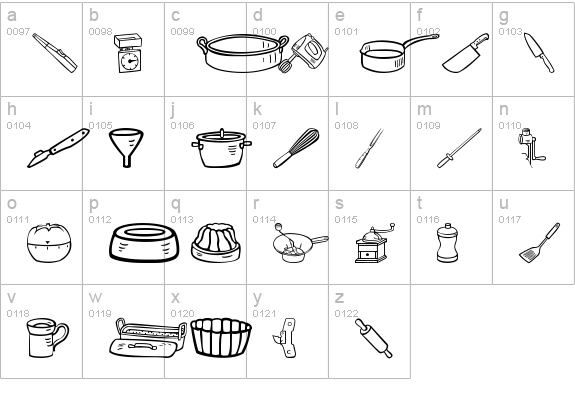
Lovely kitchen Font Details
Lovely Kitchen font is a charming and playful typeface that adds a touch of sweetness to any design project. With its unique curves and whimsical details, this font is perfect for creating a warm and inviting atmosphere in your kitchen-themed designs. Whether you're working on recipe cards, food blogs, or cooking websites, Lovely Kitchen font will bring a delightful and welcoming feel to your creations. The best part? Lovely Kitchen font is completely free to download at FontsMarket.com! This means you can easily add this lovely font to your collection without any cost. Don't miss out on this amazing opportunity to enhance your designs with the delightful charm of Lovely Kitchen font. Download it now and start creating beautiful and inviting kitchen-inspired designs today!